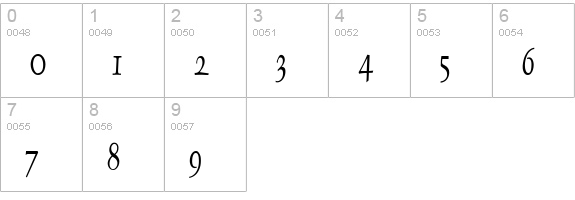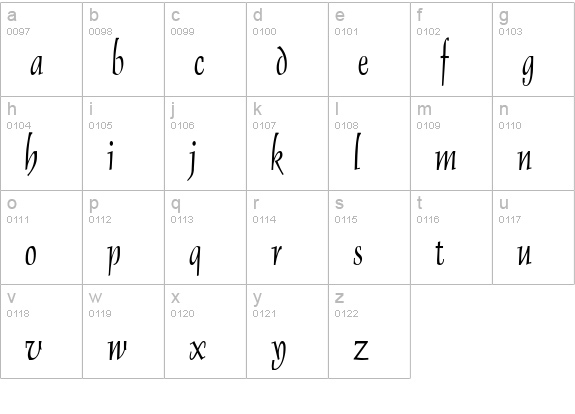
Dolphin Thin Normal is a delicate, low-contrast variant in the Dolphin typeface family \xE2\x80\x94 well suited to fashion editorial, minimal branding, and high-contrast display.
Dolphin Thin Normal font is a sleek and elegant typeface that exudes sophistication and modernity. With its slender letterforms and smooth curves, this font is perfect for creating a refined and stylish look in your design projects. Whether you're designing a logo, website, or print materials, Dolphin Thin Normal font will add a touch of class and sophistication to your work. Best of all, Dolphin Thin Normal font is available for free download at FontsMarket.com, making it accessible to designers of all levels. So why wait? Download Dolphin Thin Normal font today and elevate your designs to the next level with its timeless elegance and versatility.